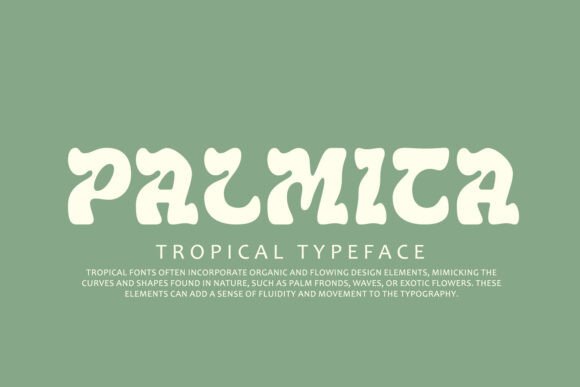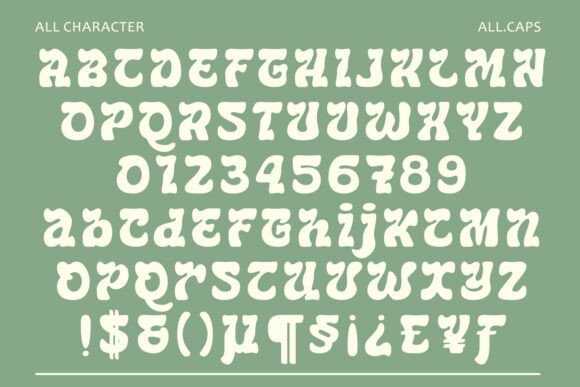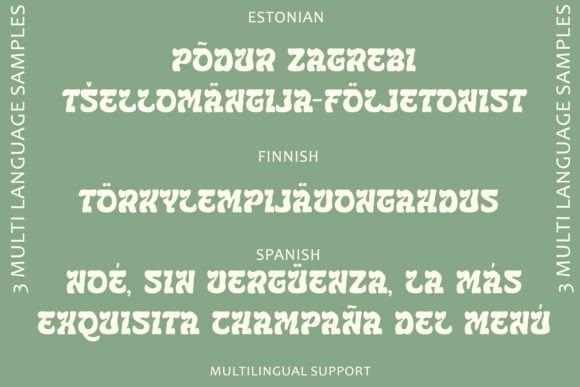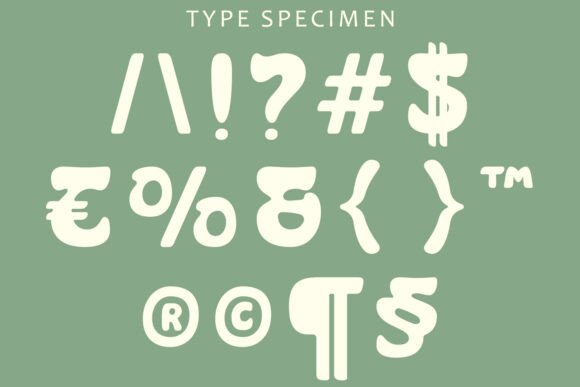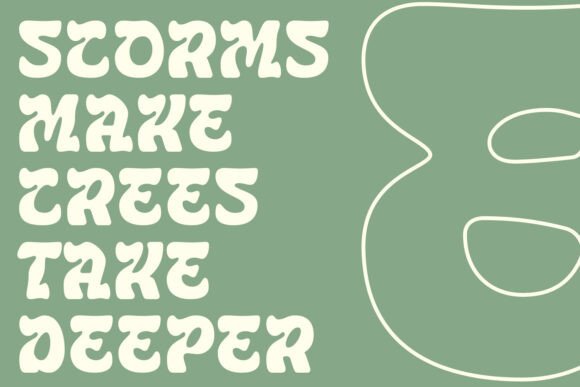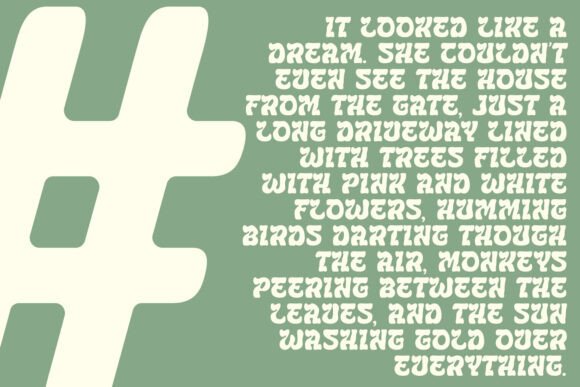
Introduction to Palmica Font
Palmica is a tropical-inspired font that captures the essence of sun-soaked beaches and swaying palm trees.
Designed with a unique blend of fluidity and elegance, Palmica offers a versatile aesthetic for both casual and professional uses Key Features of Palmica: Handcrafted Feel: Palmicaโs organic, hand-drawn style gives it an authentic and personal touch.
Key Features of Palmica Font
Why Choose Palmica Font?
Palmica Font offers exceptional quality and versatility, making it a valuable addition to your design toolkit. Whether you’re creating for personal projects or commercial use, Palmica Font delivers professional results.